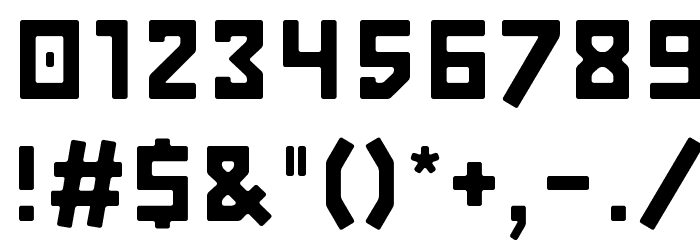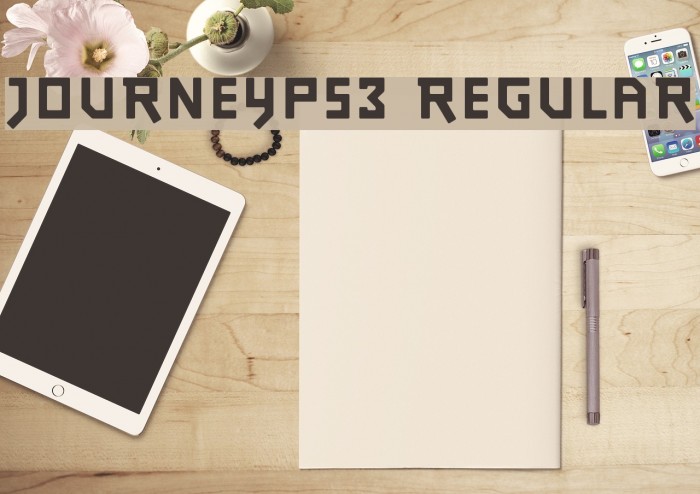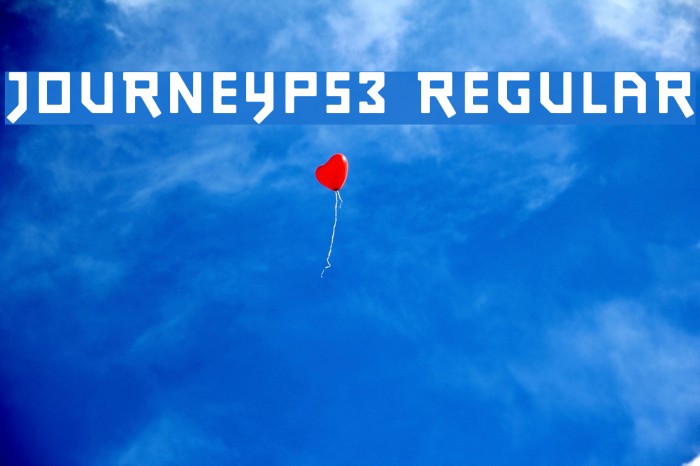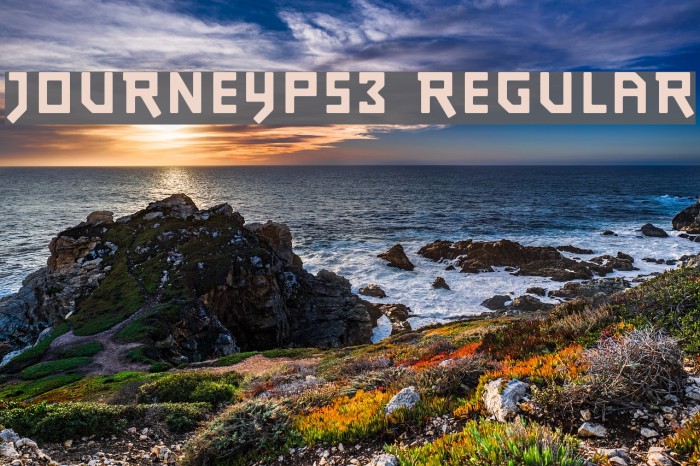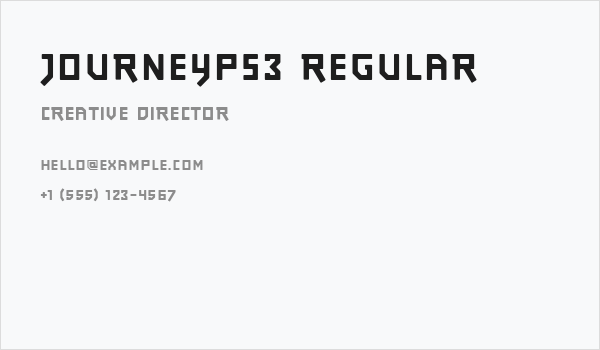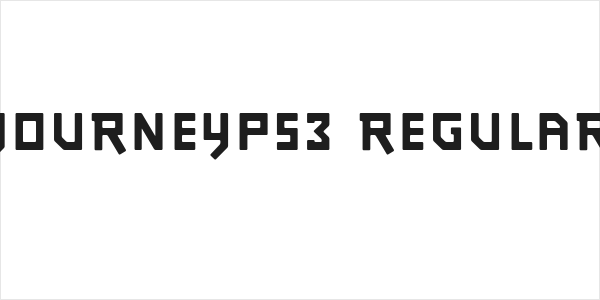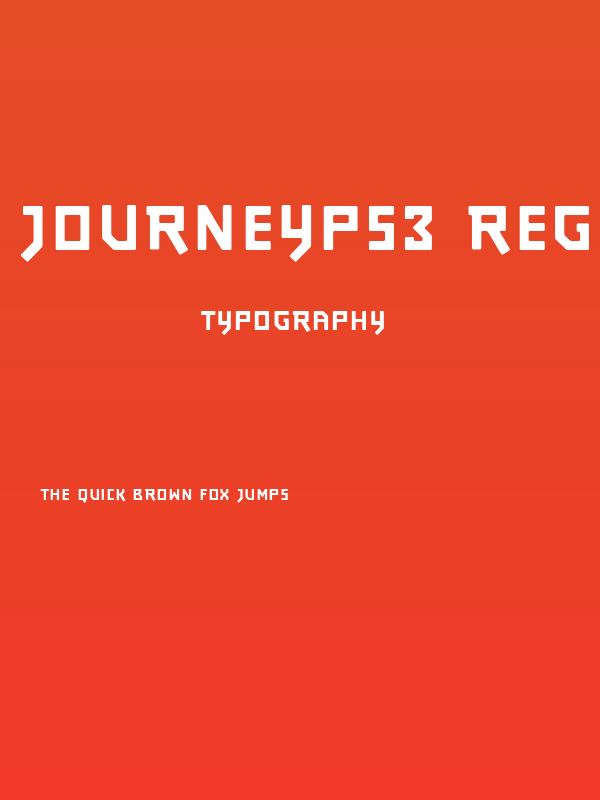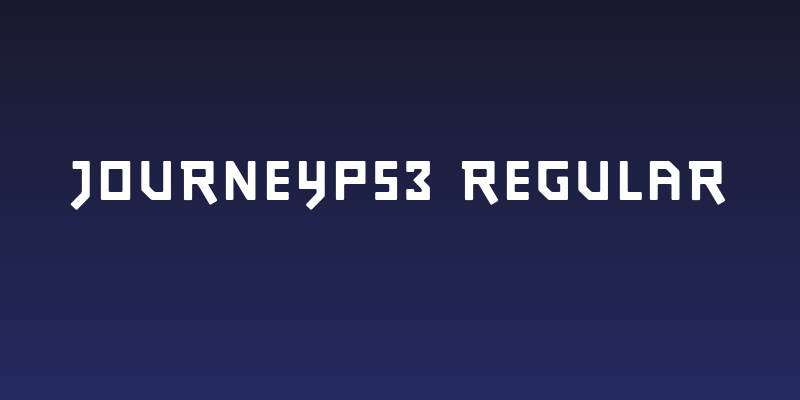
JourneyPS3 Regular Font
JourneyPS3 Regular Description
This font features a bold, geometric design with a modern and futuristic aesthetic. The characters are constructed with sharp angles and clean lines, giving it a strong and assertive presence. The uppercase and lowercase letters maintain a consistent style, with a uniform stroke width that adds to its boldness. The numerals and special characters are designed to match the overall geometric theme, ensuring a cohesive look across all glyphs. This font is ideal for projects that require a contemporary and impactful visual style.
| Proposed Projects | Ideal for branding, headlines, posters, and digital interfaces that require a strong visual impact. |